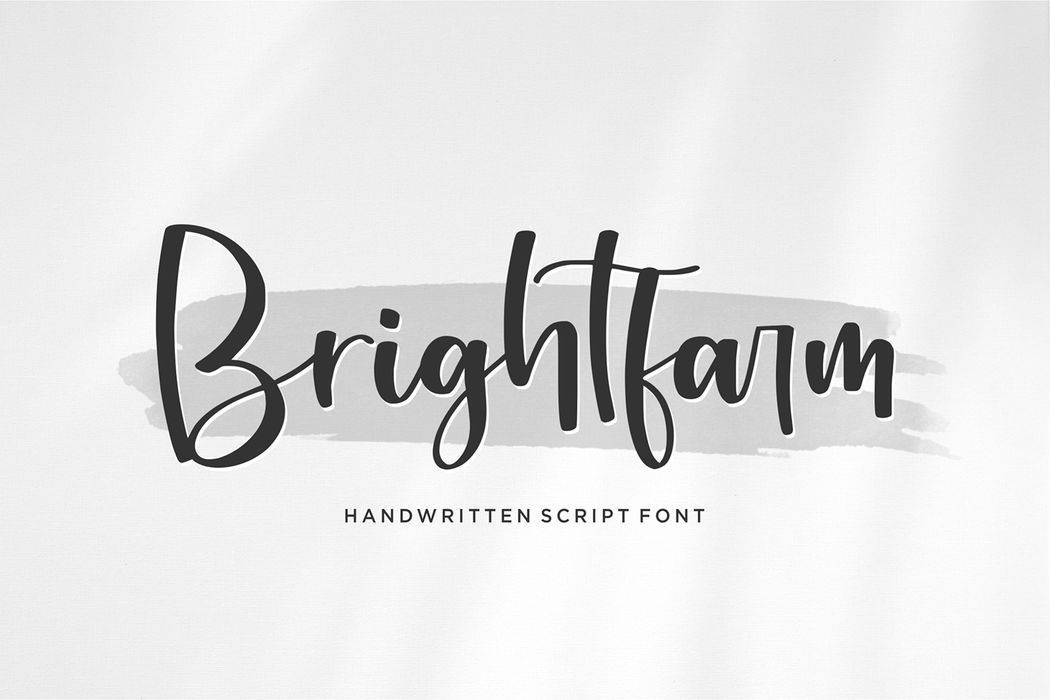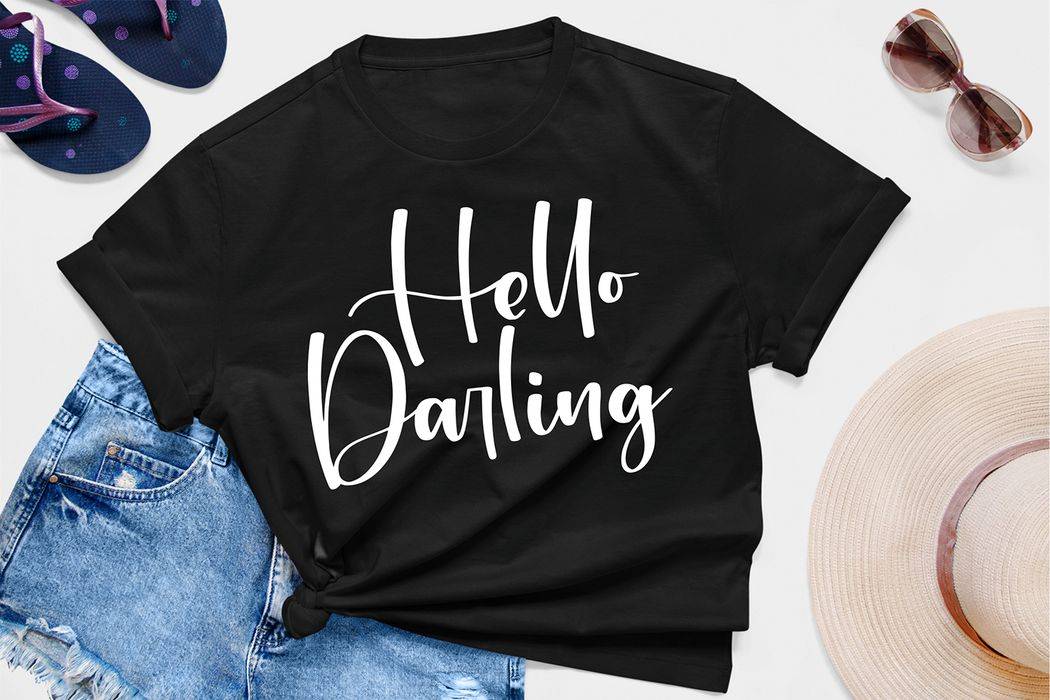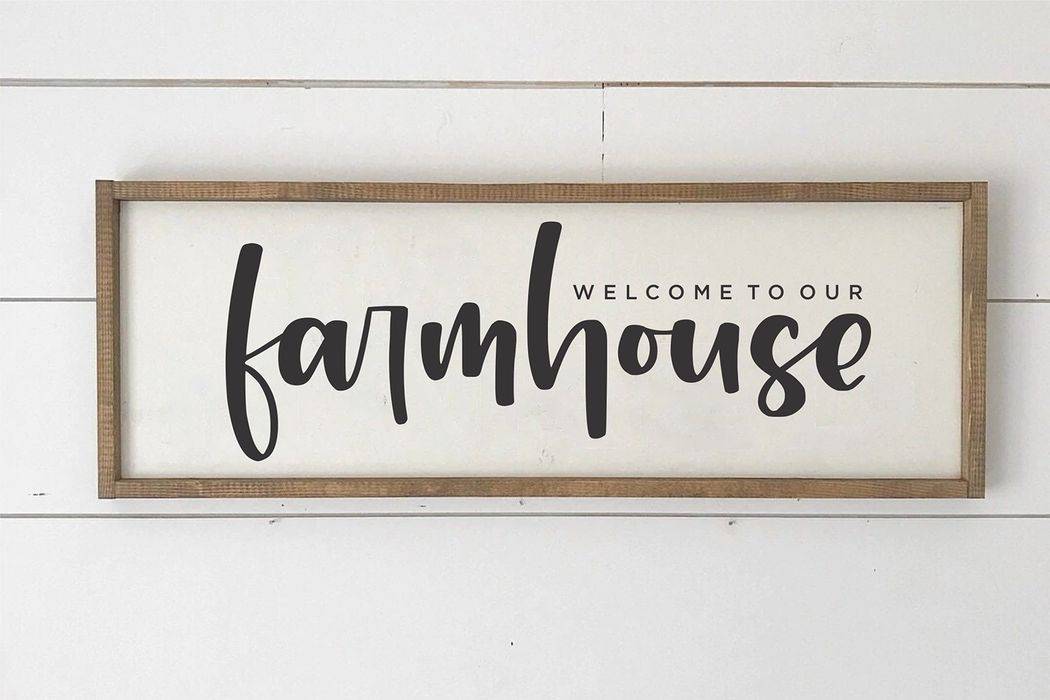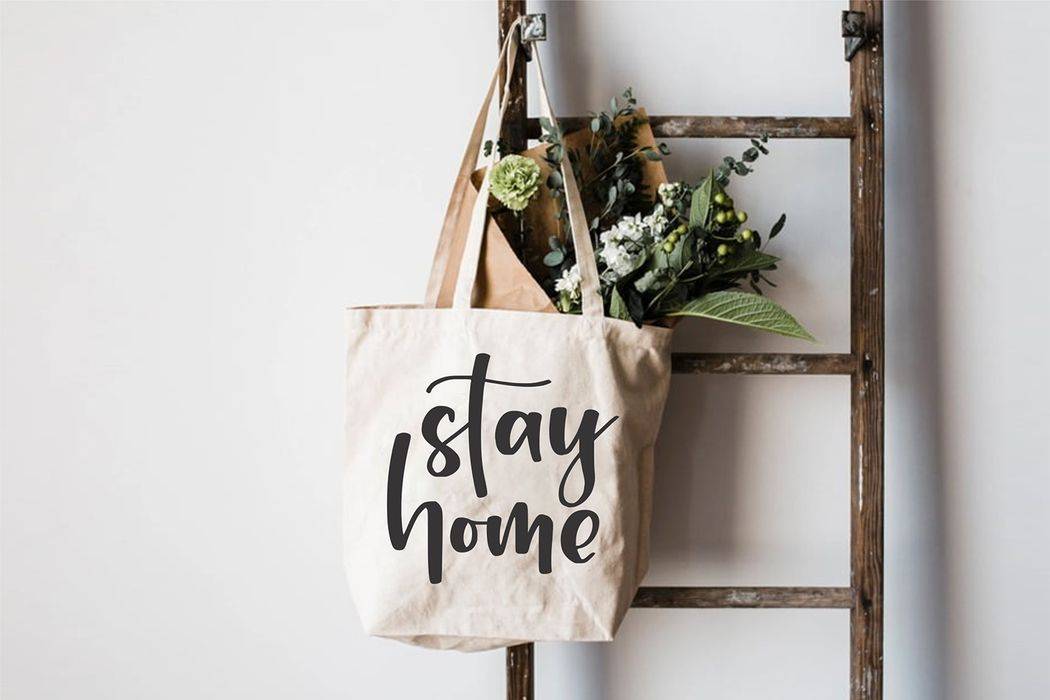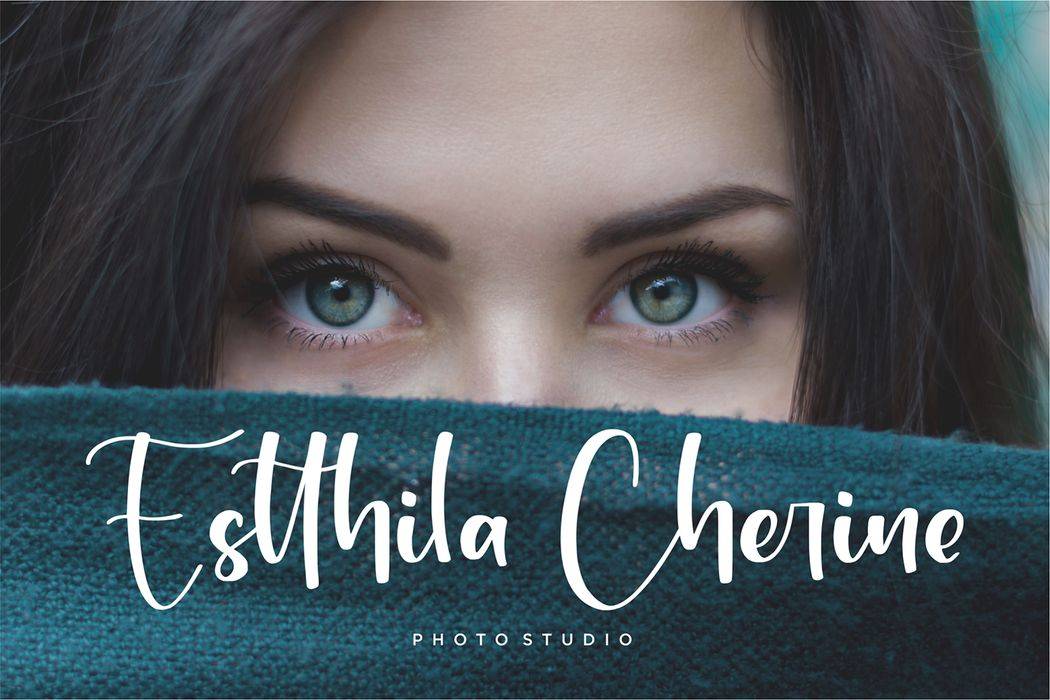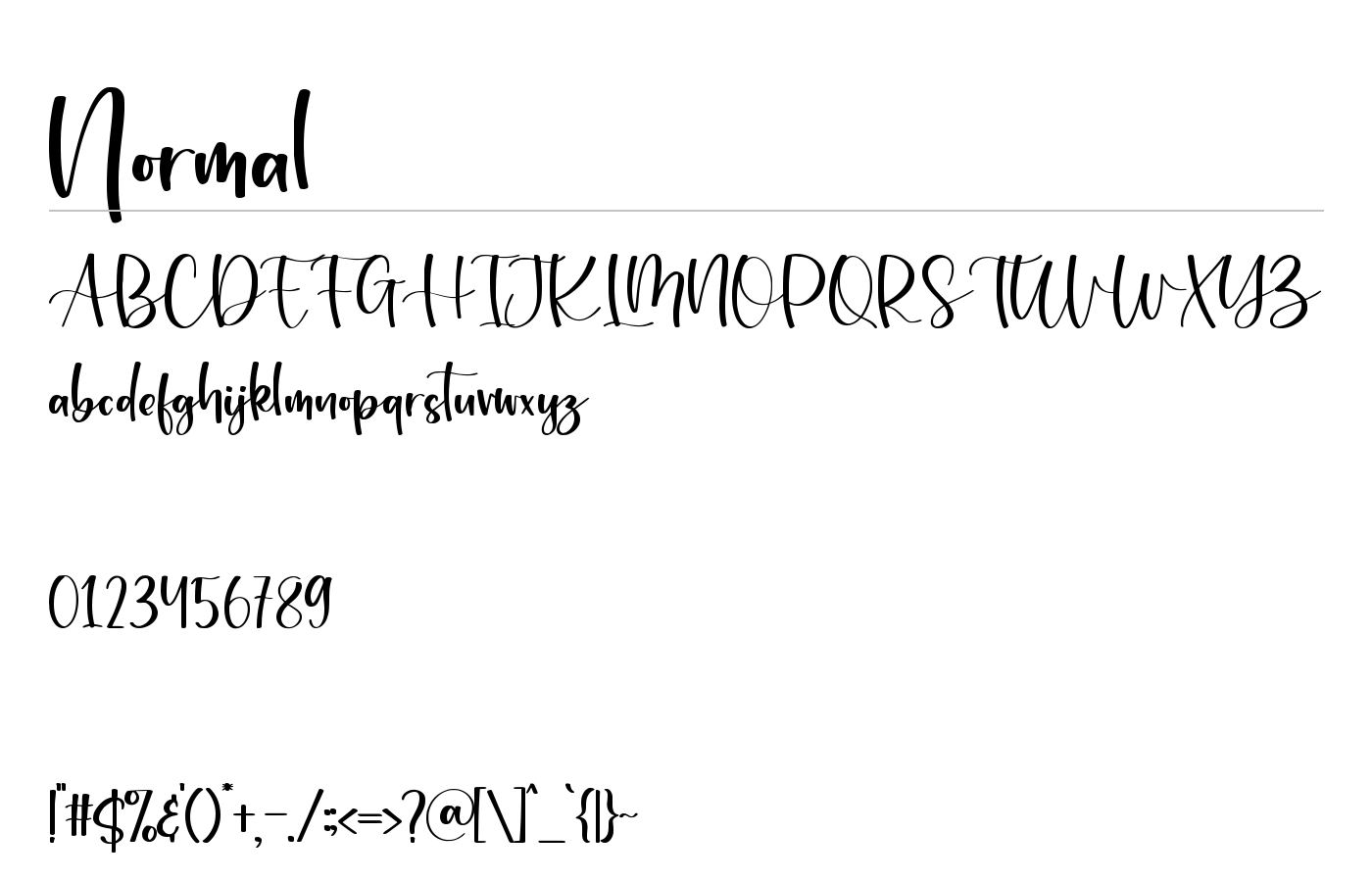
Brightfarm is a lively script font with a casual, hand-lettered feel, featuring fluid, connected strokes and playful swashes. Its light to regular weight and tall, narrow letterforms make it ideal for creating expressive, friendly designs that stand out with personality. This font works beautifully for invitations, branding, and creative projects where a warm, approachable vibe is desired.
Brightfarm Font
About Brightfarm Font
| Font family | Brightfarm Font |